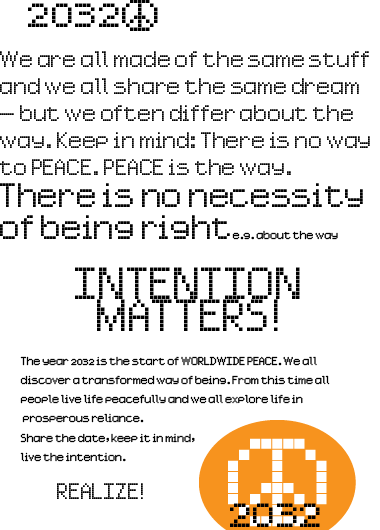
Nice. I hardly notice there are no descenders.
2032? What do we do until then?
2009 - look at the world. what are we doing now?
What time will it take to make a change? What do you think?
What would you do (or NOT do?) to make the vision real?
This font is wonderful! And peace symbol is great.
Hi Guentersen. Didn't mean to leave you hanging on your question there. Thanks for asking. I did mean to say this:
Peace emanates from the world within, before it can manifest in the world without. And I affect change by transforming the only thing I have control over in the first place- myself. Awareness of individual consciousness and the choice to focus intentions on solutions rather than problems are good starts. There really is no better time than the present. Actually, the only time to make a change is now, since no action can be taken in the past or the future. But its all easier said than done. I like to envision it being done already. It's kinda like my approach with FontStruct,
to see beyond what has been given to create the world (or a font) as I intend it.